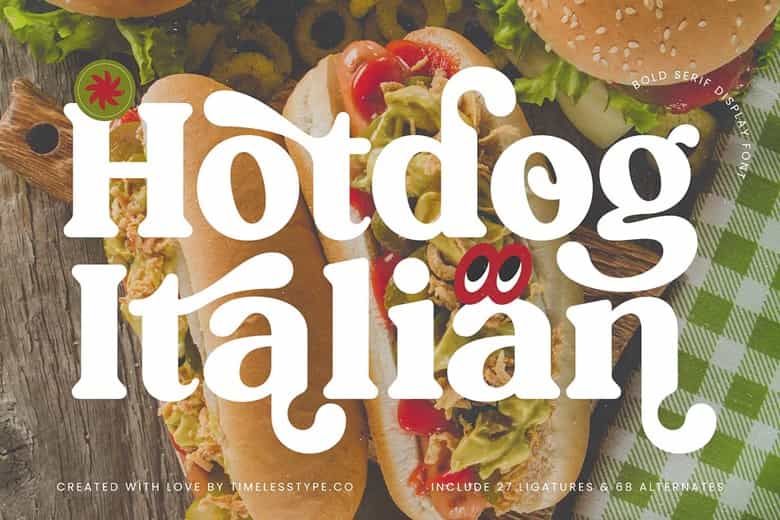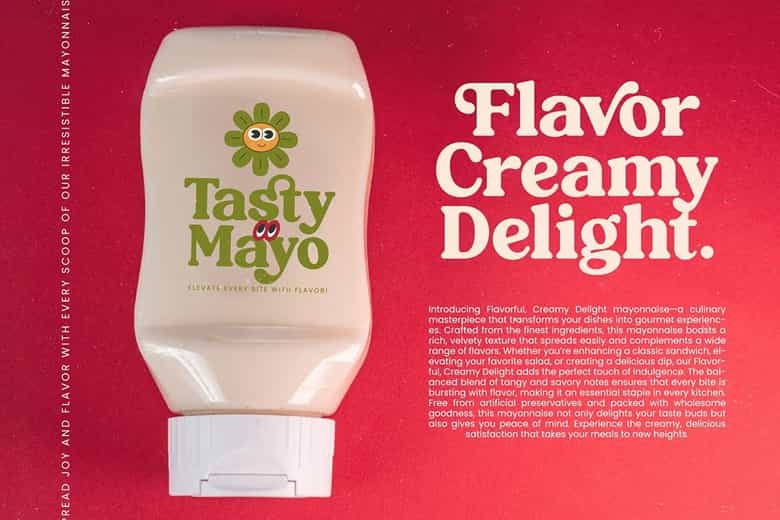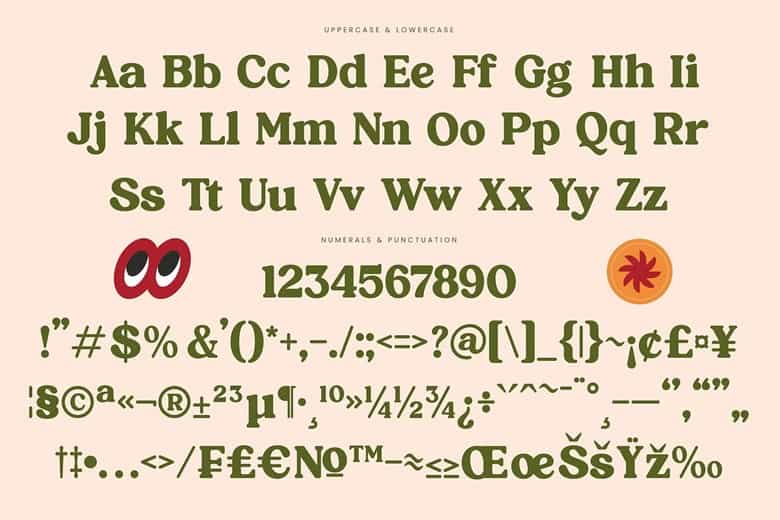
Hotdog Italian is a new bold display serif typeface, It’s suitable for any projects such as: logos, branding projects, homeware designs, product packaging, mugs, quotes, posters, shopping bags, t-shirts, book covers, name card, invitation cards, greeting cards, label, special events, and all your other luxury and beautiful projects